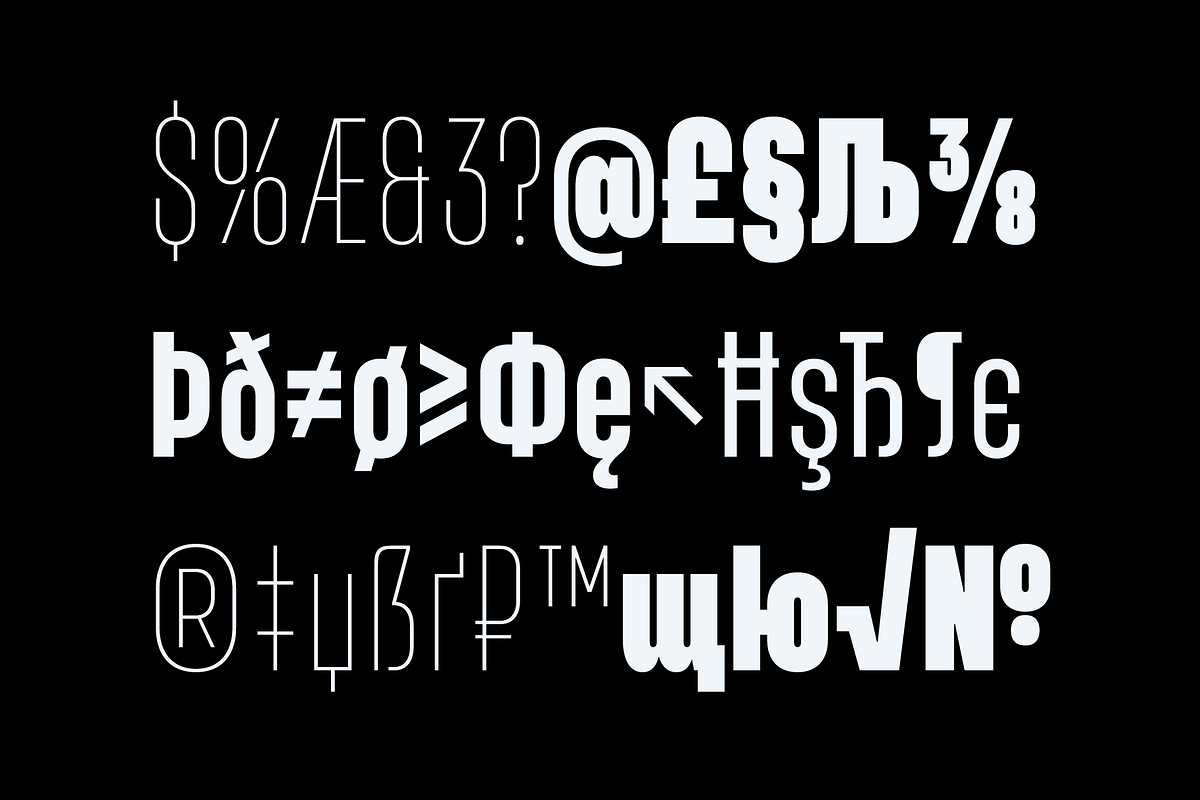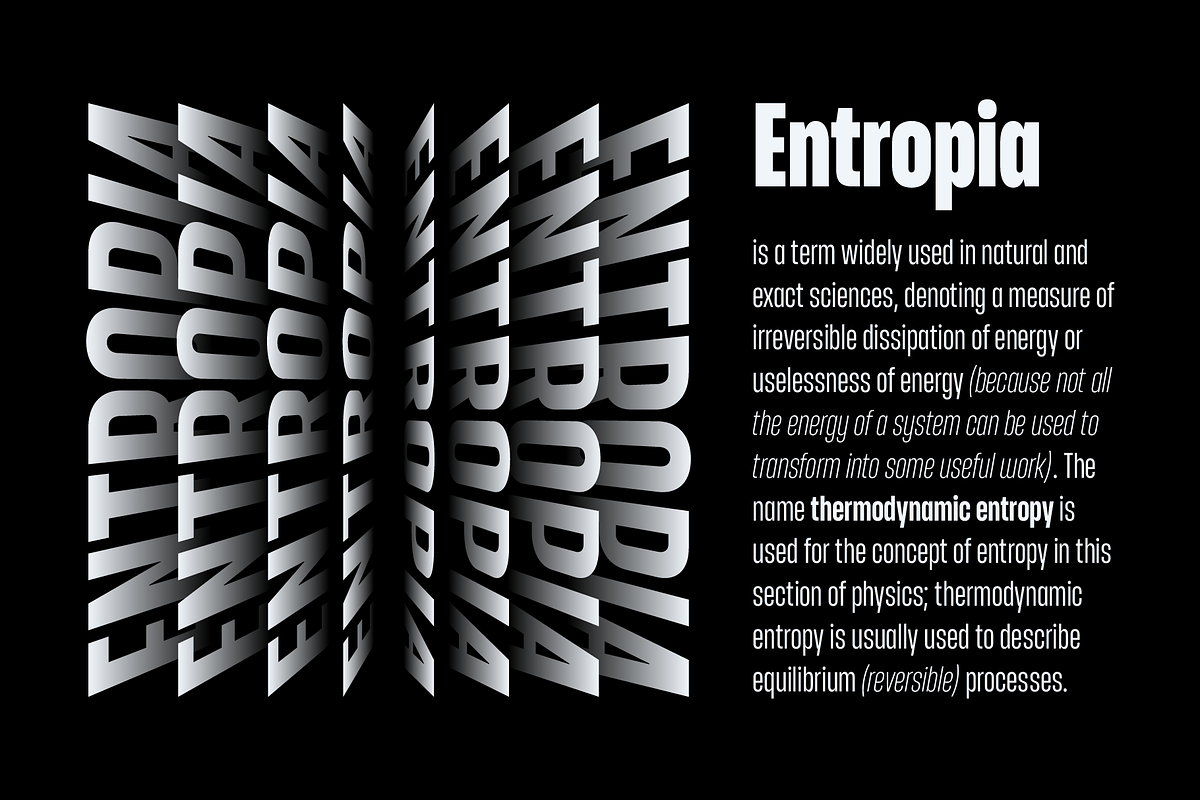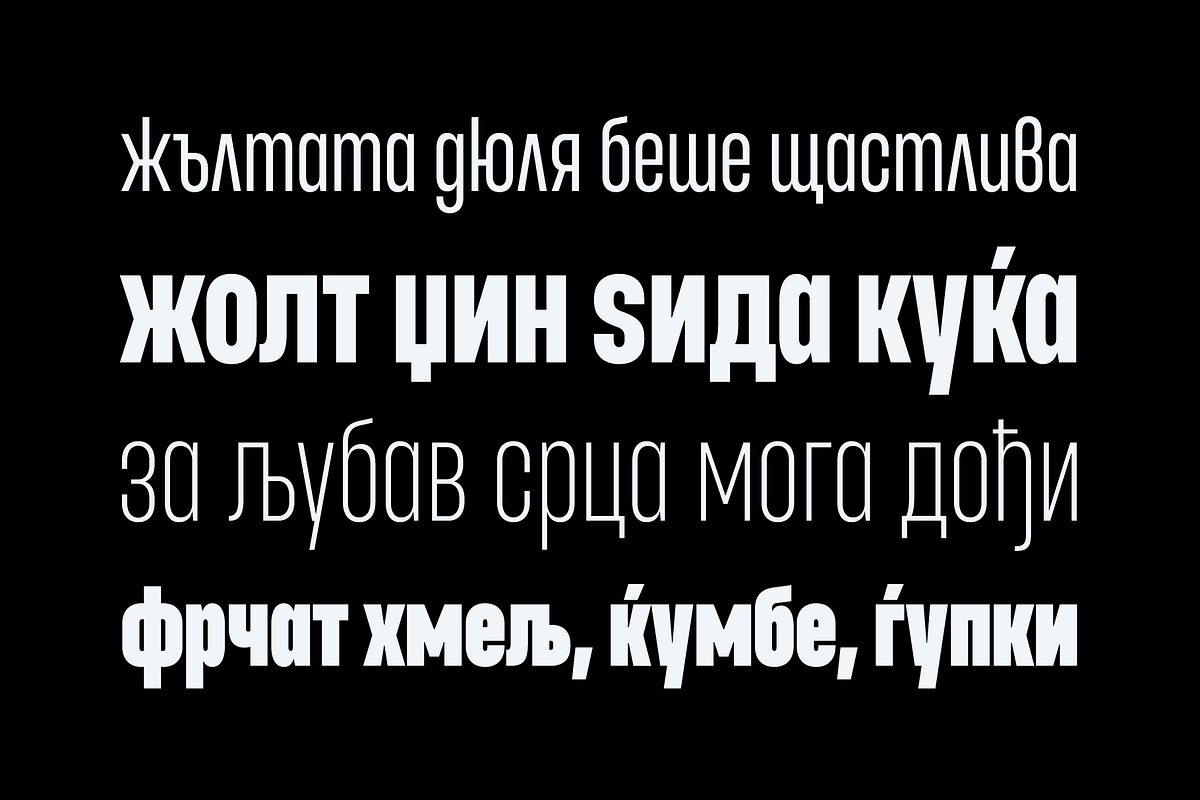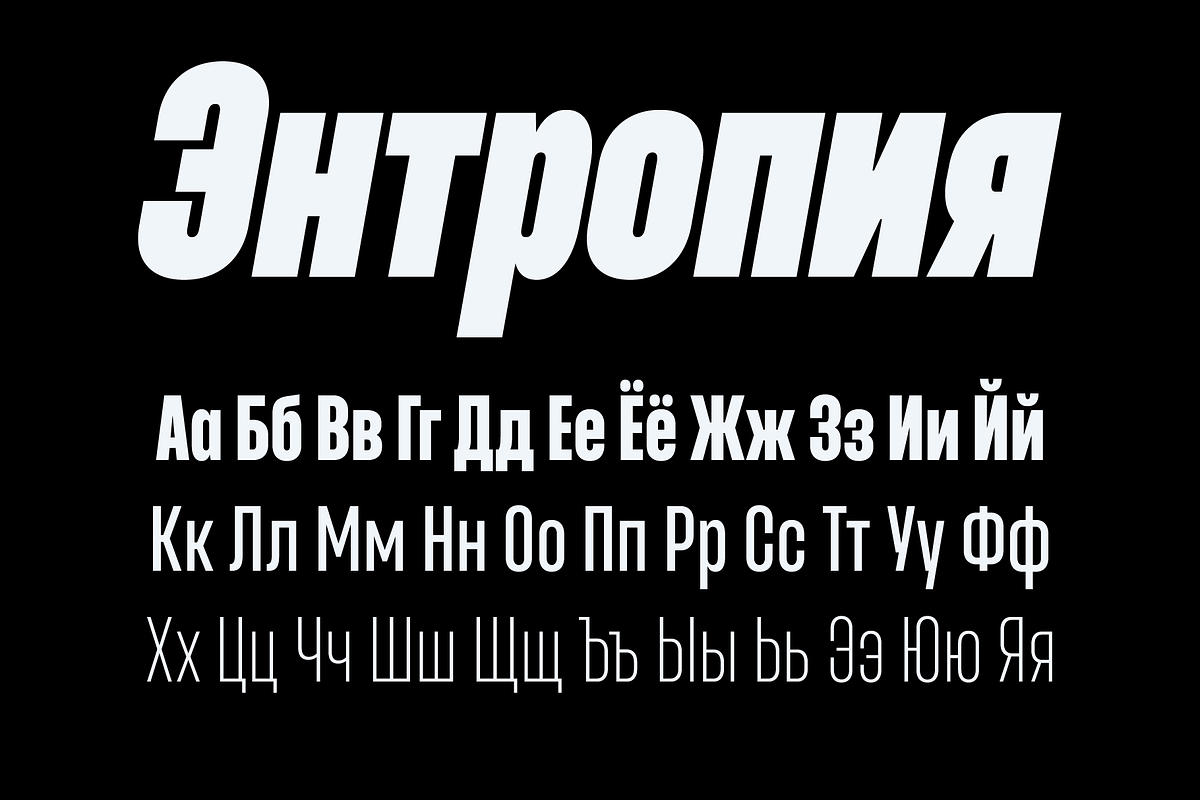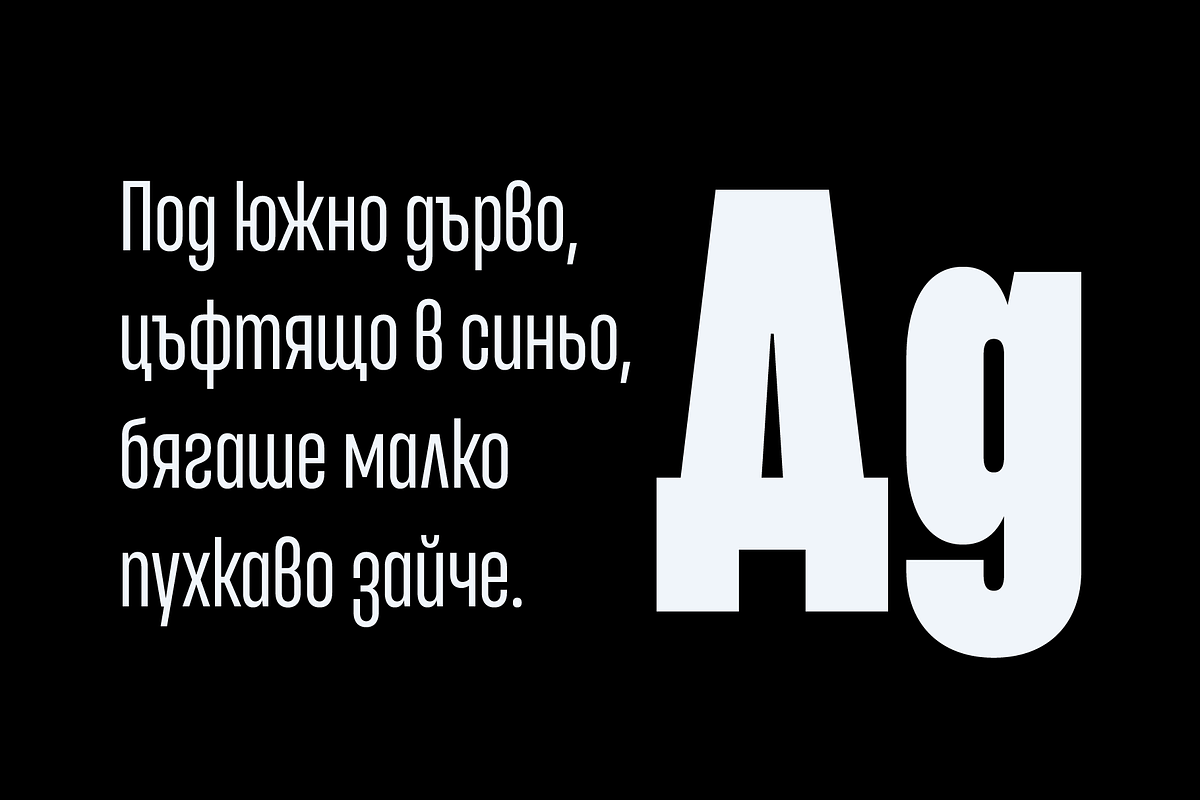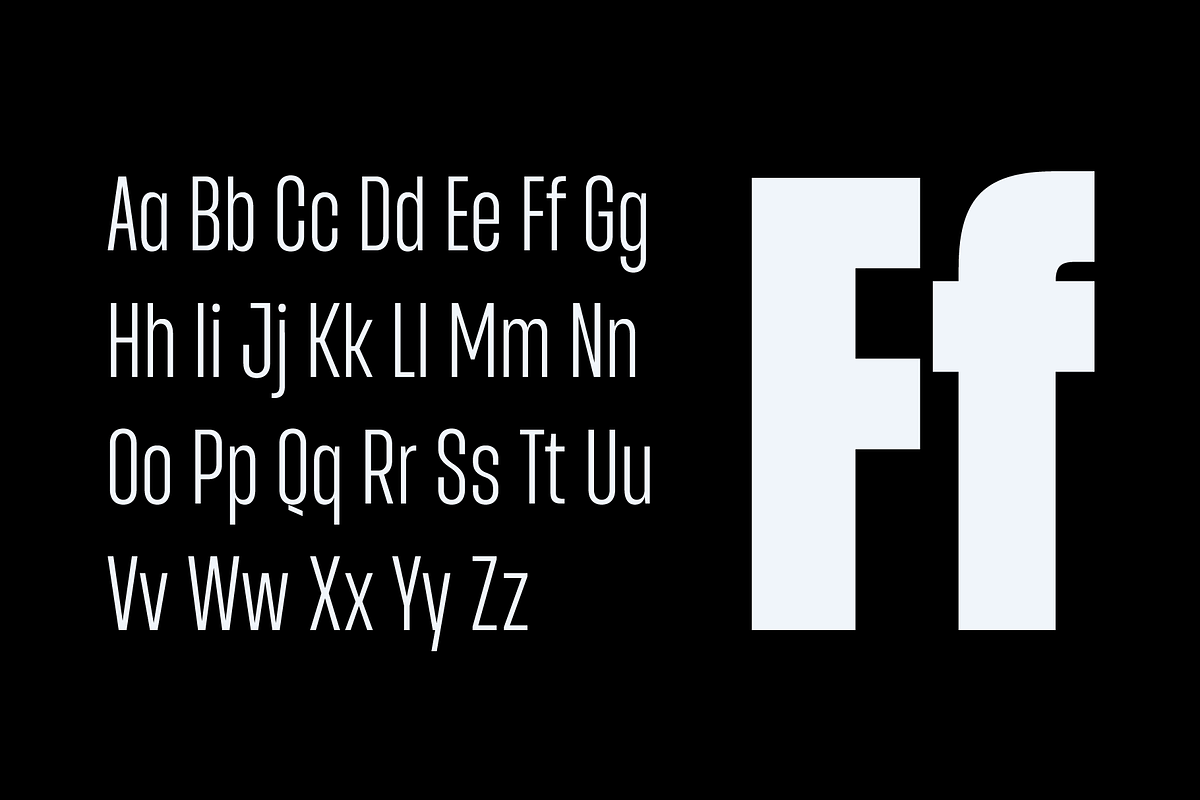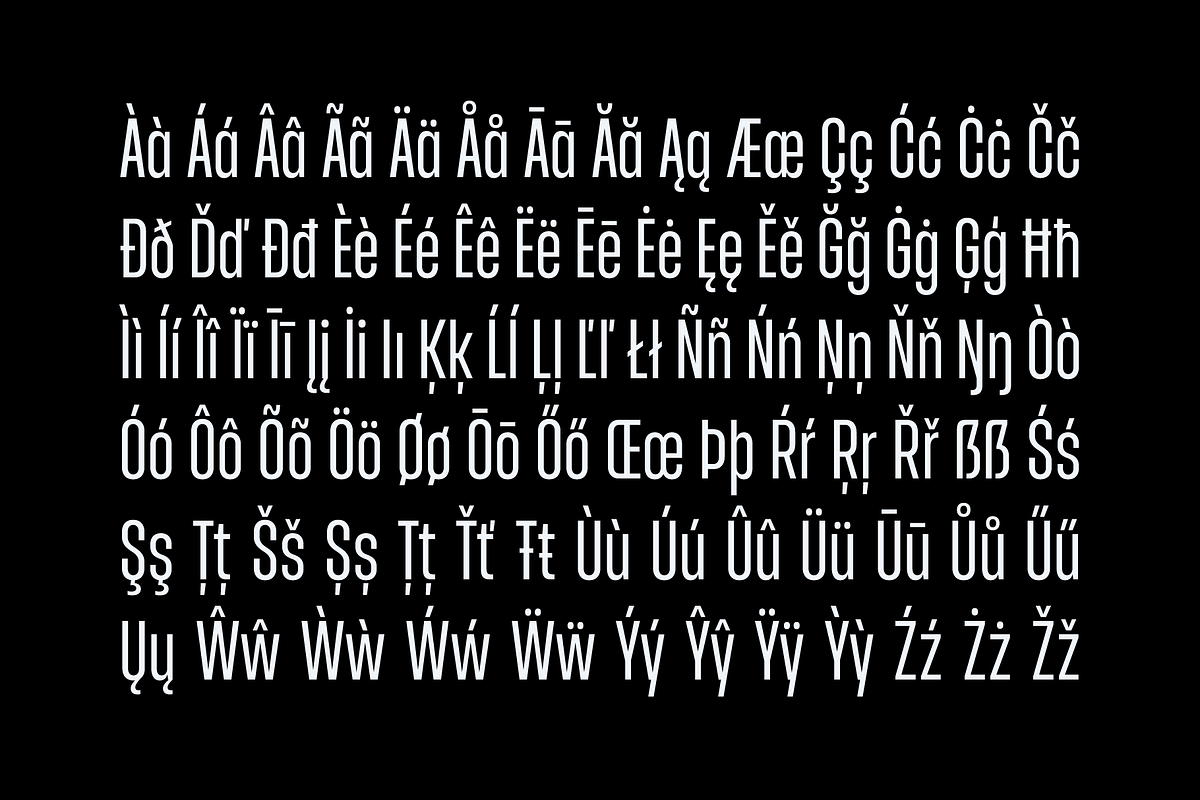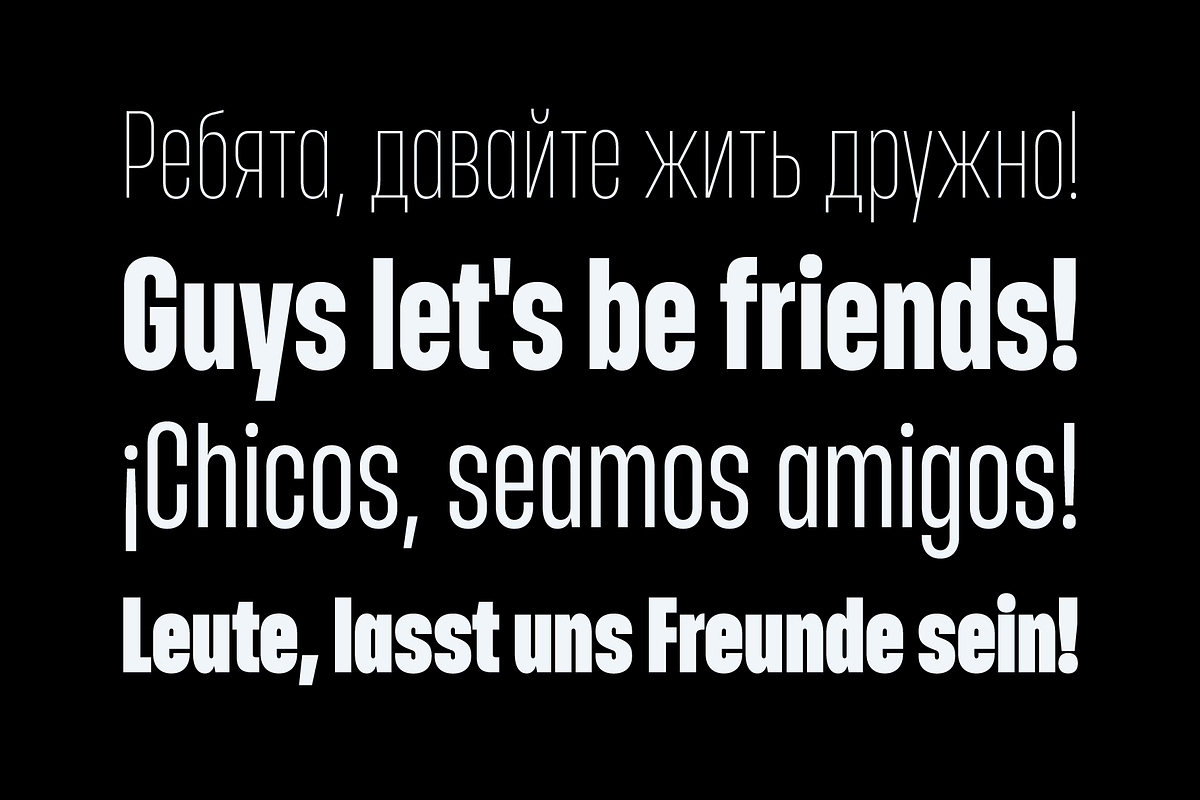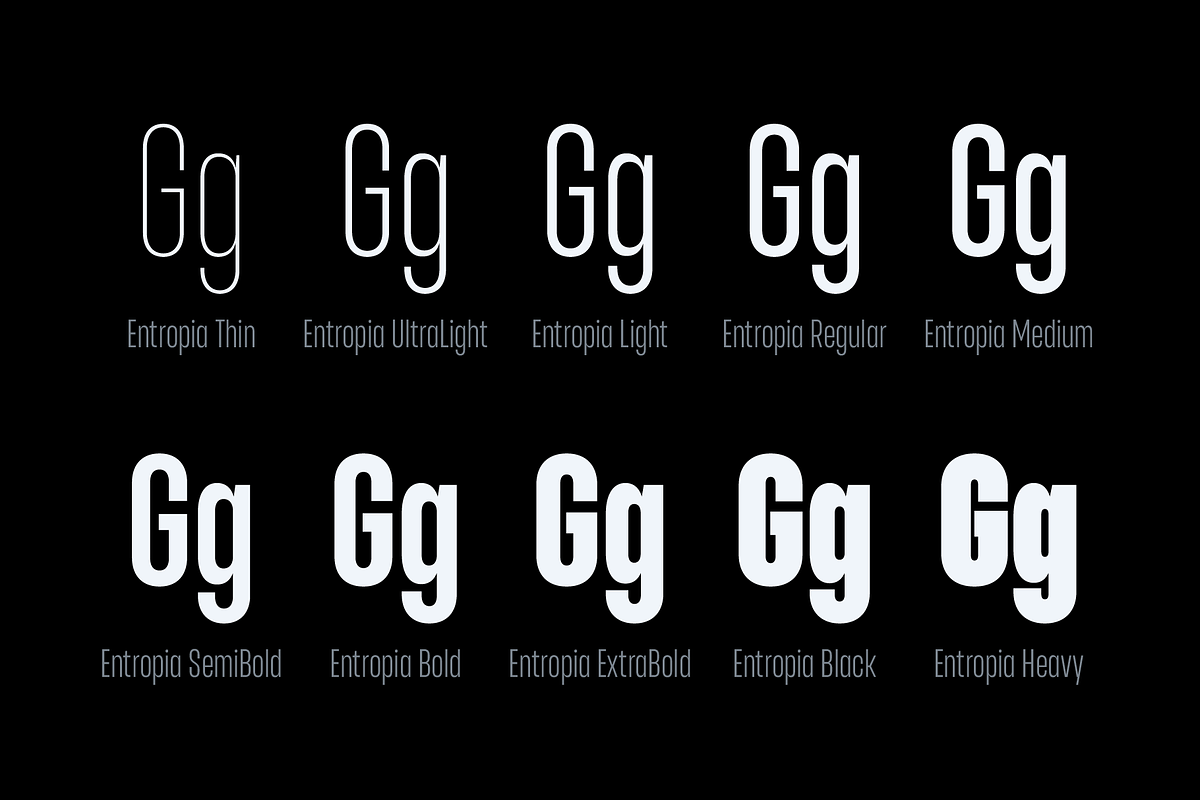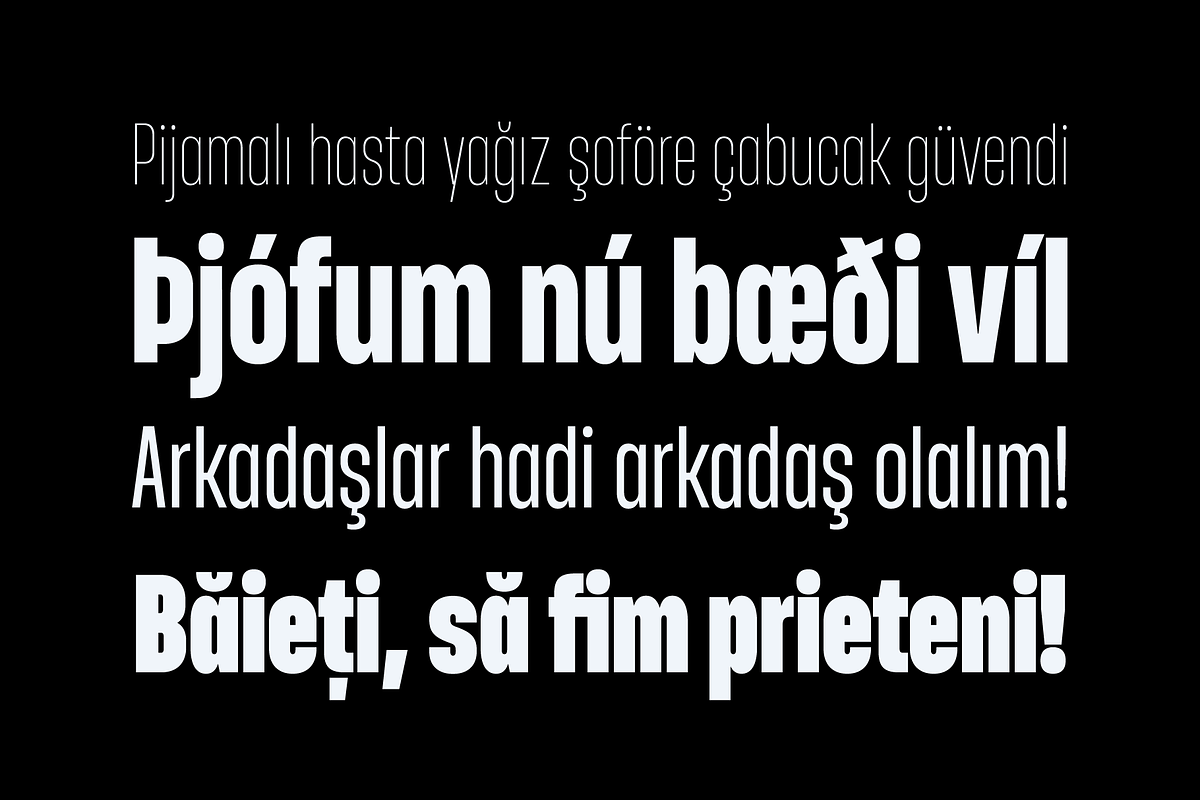
Entropia — condensed geometric sans
Entropia is a condensed geometric grotesque designed as a versatile contemporary type system. Its tall, narrow proportions create an efficient and distinctive typographic structure while maintaining a clean geometric character.
The family includes 10 weights with matching italic styles, plus a retalic style, for a total of 30 styles. This broad range allows designers to build clear typographic hierarchy within a single family, from lighter weights to strong display cuts.
Entropia is particularly effective for branding, logos, headlines, posters, packaging, editorial design, presentations, social media, websites, and identity systems where condensed proportions and strong typographic structure are useful.
Each style contains 735 glyphs and supports Latin and Cyrillic scripts with broad multilingual coverage. OpenType features include standard and discretionary ligatures, Romanian and Bulgarian localized forms, fractions, numerator and denominator figures, superscript and subscript figures, monospaced figures, ordinals, contextual alternates, case-sensitive forms, and 5 stylistic sets, including localized forms within two of the sets.
With its combination of condensed proportions, extensive weight range, multiple italic styles, geometric construction, and multilingual support, Entropia provides a flexible system for designers who need efficient typography without sacrificing character.